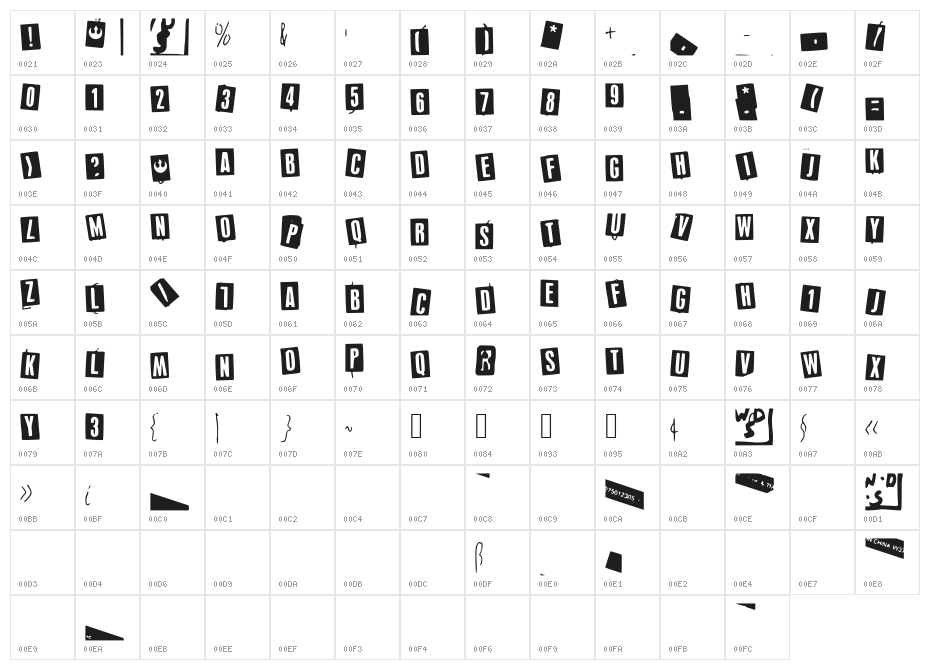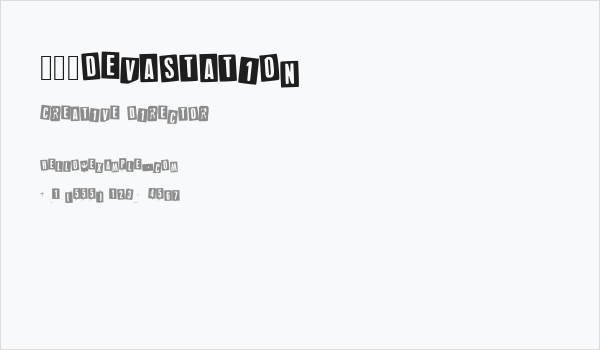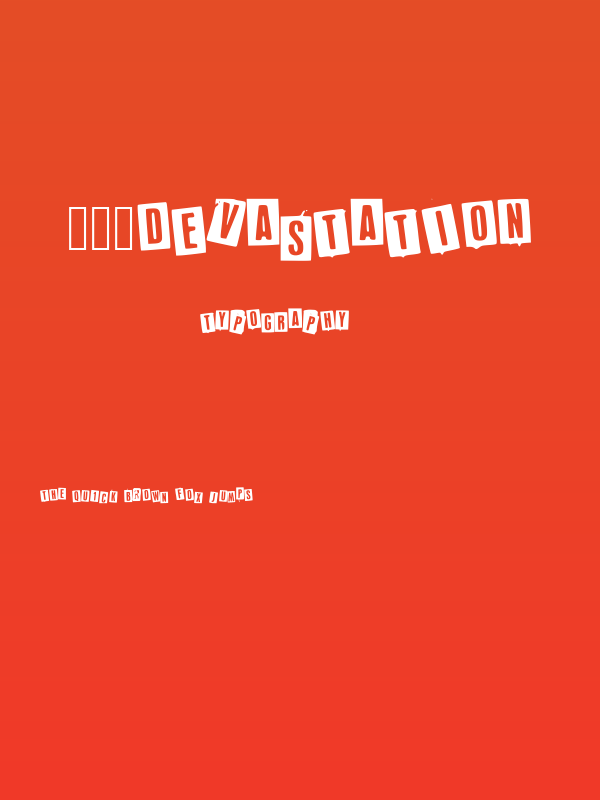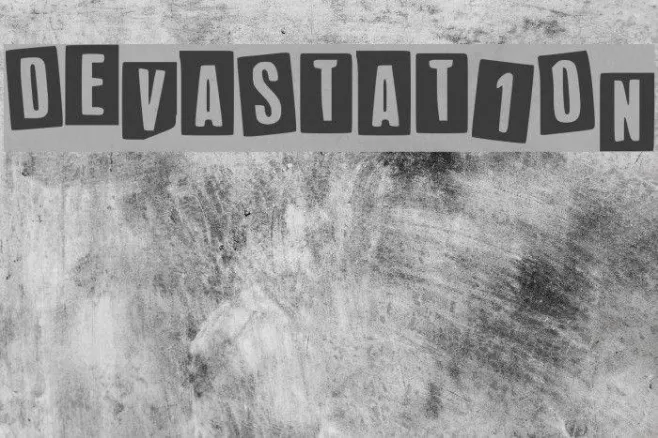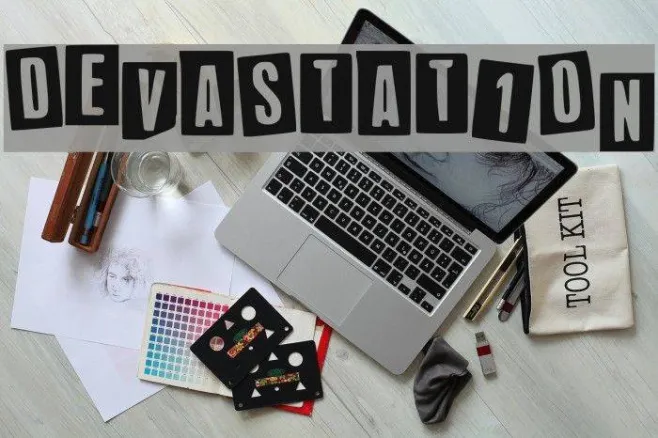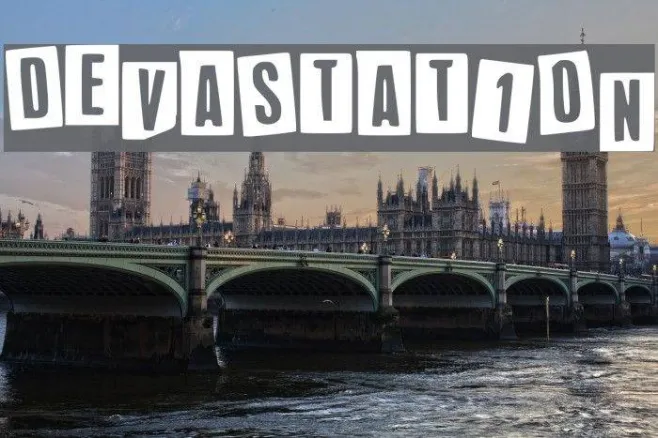
___Devastation Font
___Devastation Description
This font features a bold, playful style with each character set against a black, irregularly shaped background, reminiscent of cut-out letters from magazines or newspapers. The letters are uppercase and lowercase, with numbers and a variety of special characters. The design is quirky and eye-catching, with each character having a unique, slightly distorted appearance that adds to its charm. The font's overall look is reminiscent of ransom notes or collage art, making it ideal for projects that require a touch of whimsy or a DIY aesthetic. The characters are well-defined, with a strong contrast between the white letters and the black background, ensuring readability despite the unconventional design.
| Use Case | Headlines, Posters, Artistic projects |
| Proposed Projects | Ideal for creative projects like posters, album covers, or event flyers that require a unique, artistic touch. |